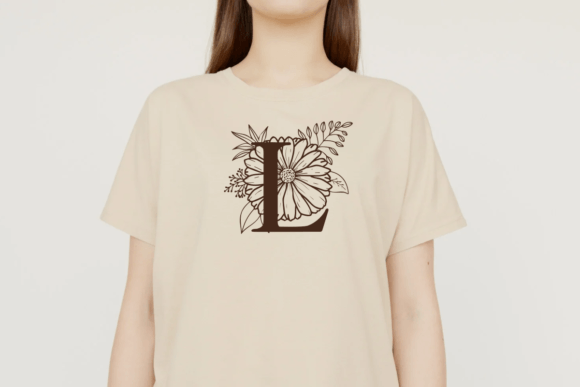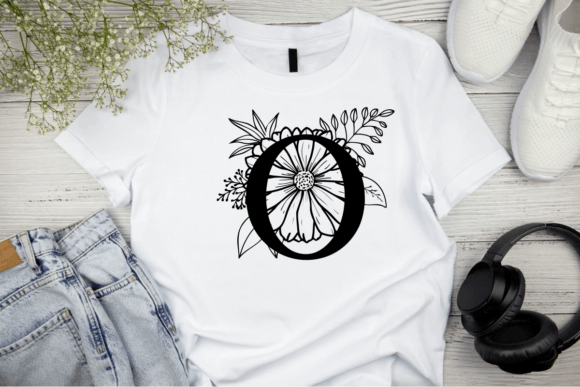
The Gerbera Font: A Decorative Delight for Creative Projects
I’ll never forget the time I was working on a greeting card design project, and I just couldn’t find the right font to match the playful, floral theme. My client wanted something that would make their card stand out, but I was stuck with the usual suspects – fonts that were either too plain or too over-the-top. That’s when I stumbled upon the Gerbera font, and it was love at first sight! 💕
With its beautiful floral elements and decorative flair, Gerbera quickly became my go-to font for all sorts of creative projects. And today, I’m excited to share its awesomeness with you! 🎉
What I Love About Gerbera Font
- ✨ Unique Floral Elements: Gerbera’s got a special something that sets it apart from other decorative fonts. Its floral elements add a touch of whimsy and playfulness to any design.
- ✅ Versatility: This font is incredibly versatile – you can use it for taking notes, writing a diary, making greeting cards, or creating social media posts.
- 💫 Easy to Read: Despite its decorative nature, Gerbera is surprisingly easy to read, making it perfect for longer texts or designs.
Now, I know what you’re thinking – no font is perfect, right? 😊 Here are a few things to keep in mind:
- 🤔 Glyphs and OpenType Features: While Gerbera has some amazing glyphs and OpenType features, they can be a bit tricky to access. You’ll need to dig into your design software’s advanced features to get the most out of this font.
- ⚠️ Not Suitable for Body Text: While Gerbera is easy to read, it’s still a decorative font. It’s best used for headings, titles, or short texts rather than long blocks of body text.
Gerbera font was inspired by the beautiful, delicate Gerbera daisy flower. Its designer, [fictional name], wanted to capture the flower’s playful, whimsical spirit in a font that would bring joy to creative projects. With its unique floral elements and decorative flair, Gerbera font is sure to add a touch of magic to your designs.
Q: What is Gerbera font best used for?
A: Gerbera font is perfect for creative projects like greeting cards, social media posts, banners, mugs, cards, shirts, and more!
Q: Is Gerbera font easy to read?
A: Yes, despite its decorative nature, Gerbera font is surprisingly easy to read, making it perfect for longer texts or designs.